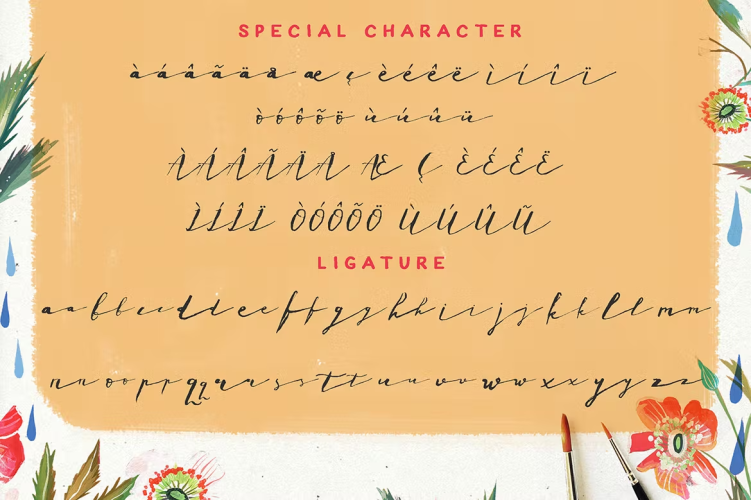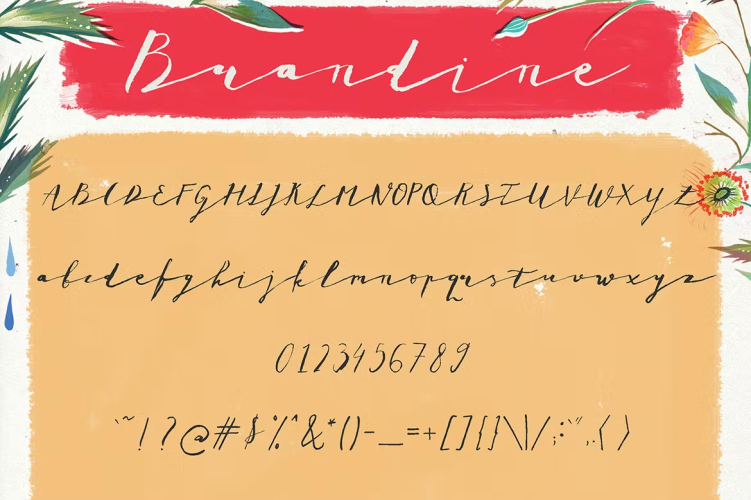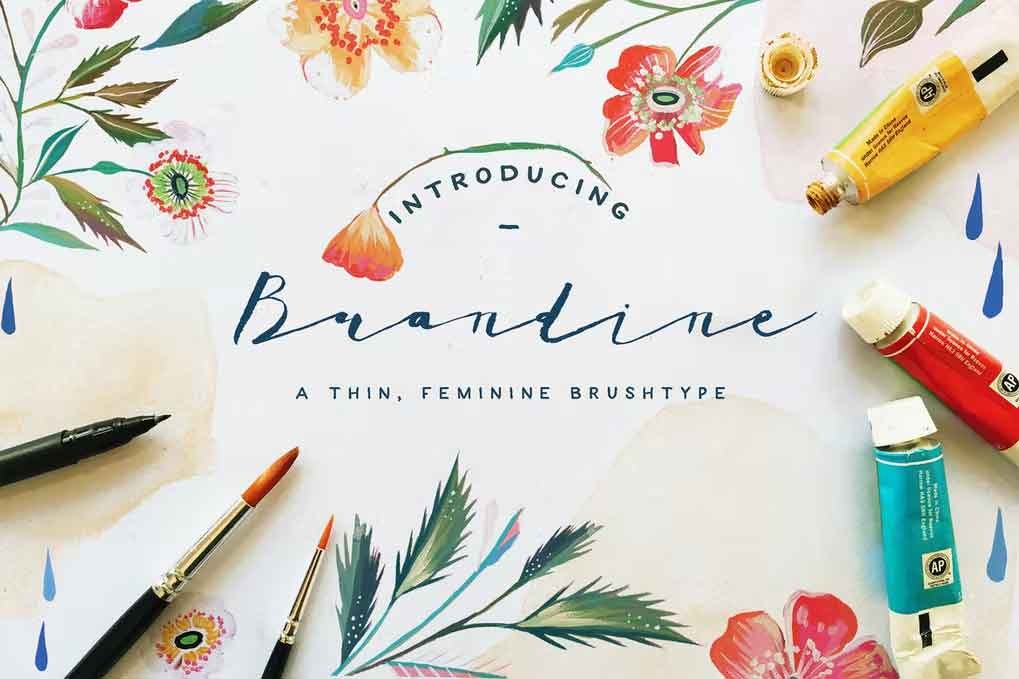
Brandine Font
Brandine is a feminine typeface, made of thin brush and watercolor. You can use Brandine best for your wedding cards and invites, greeting cards, title for your illustration, logo, return address, and other types of branding work.